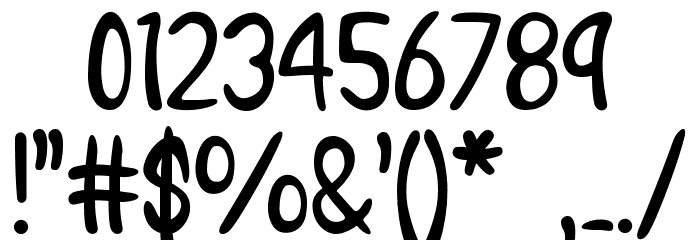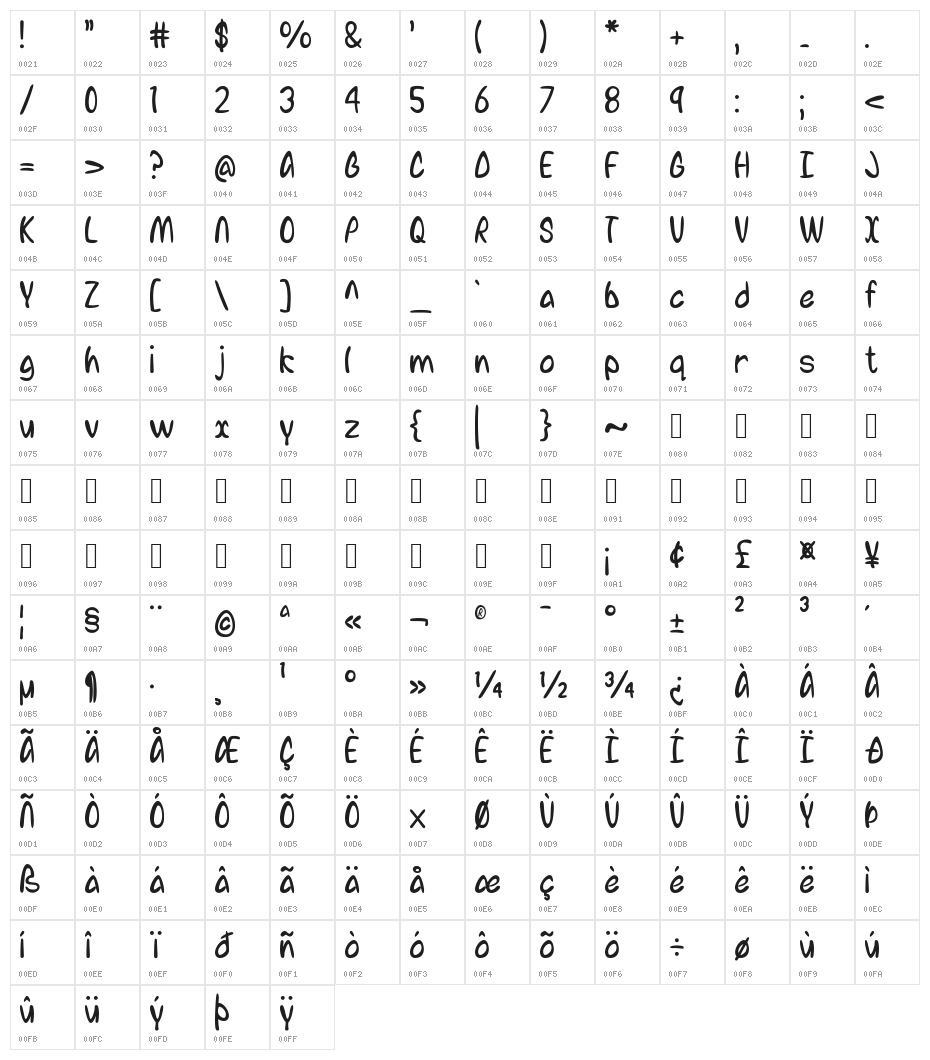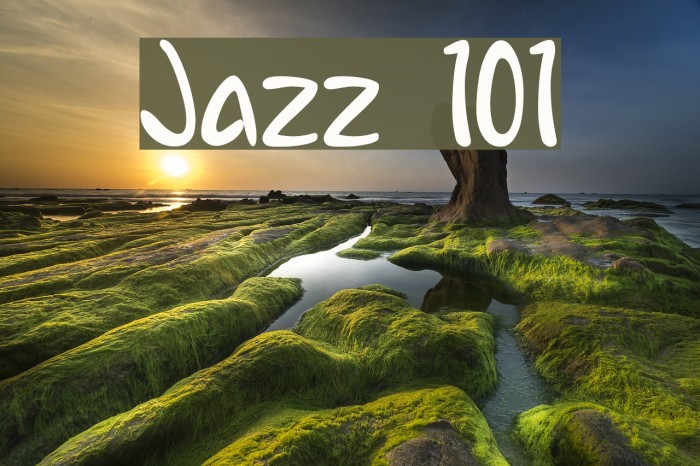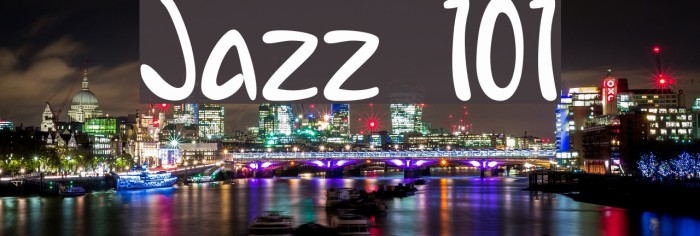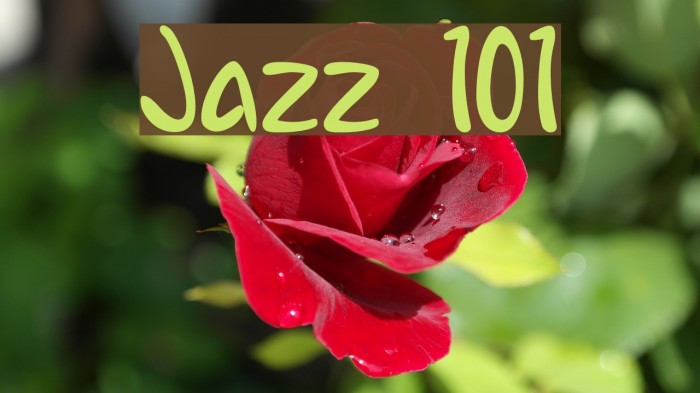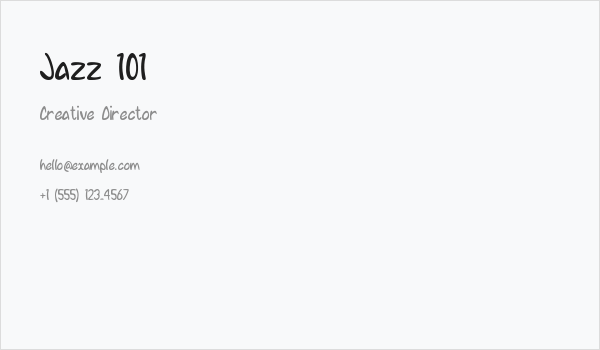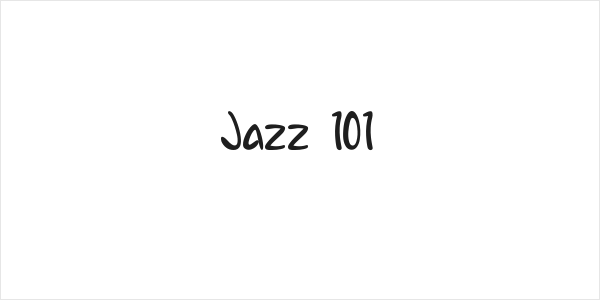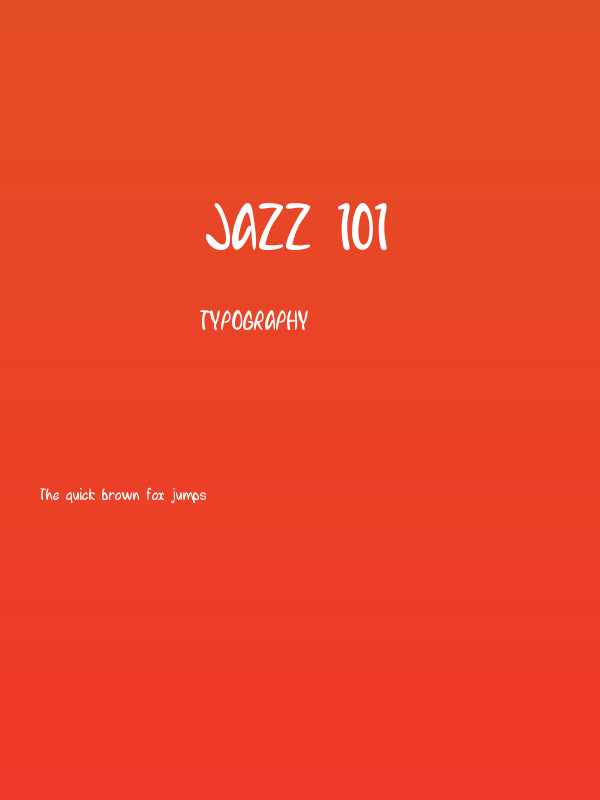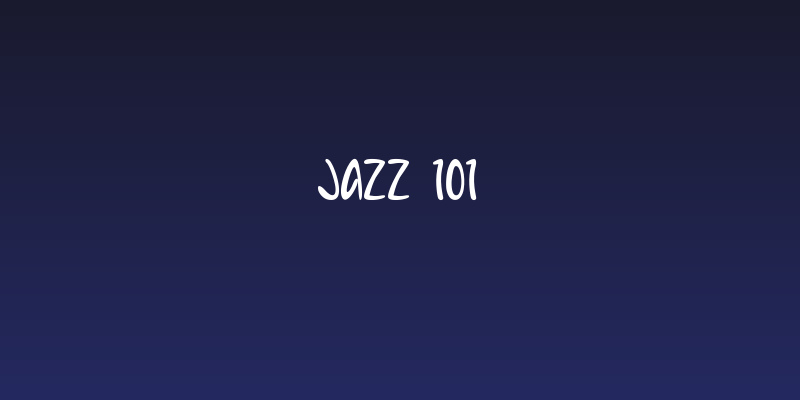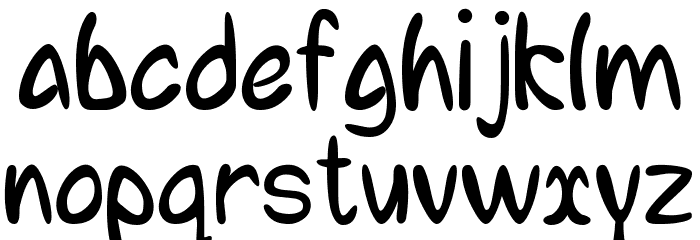
Jazz 101 Font
Jazz 101 Description
This font features a playful and energetic style, characterized by its bold, rounded letters and a hand-drawn appearance. The uppercase and lowercase letters maintain a consistent flow, with slightly exaggerated curves that add a sense of movement and rhythm. The numbers and special characters follow the same lively design, making them easily recognizable and visually appealing. The overall look is informal and friendly, suitable for projects that require a touch of whimsy and creativity.